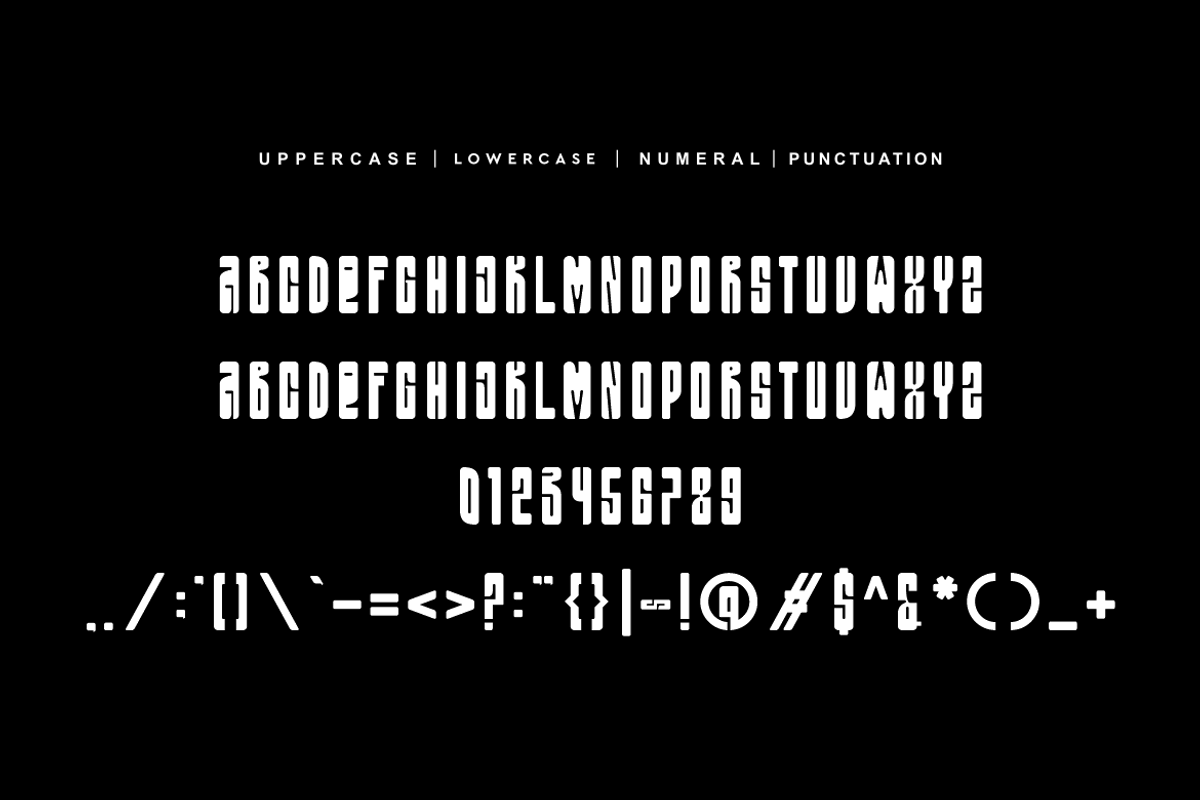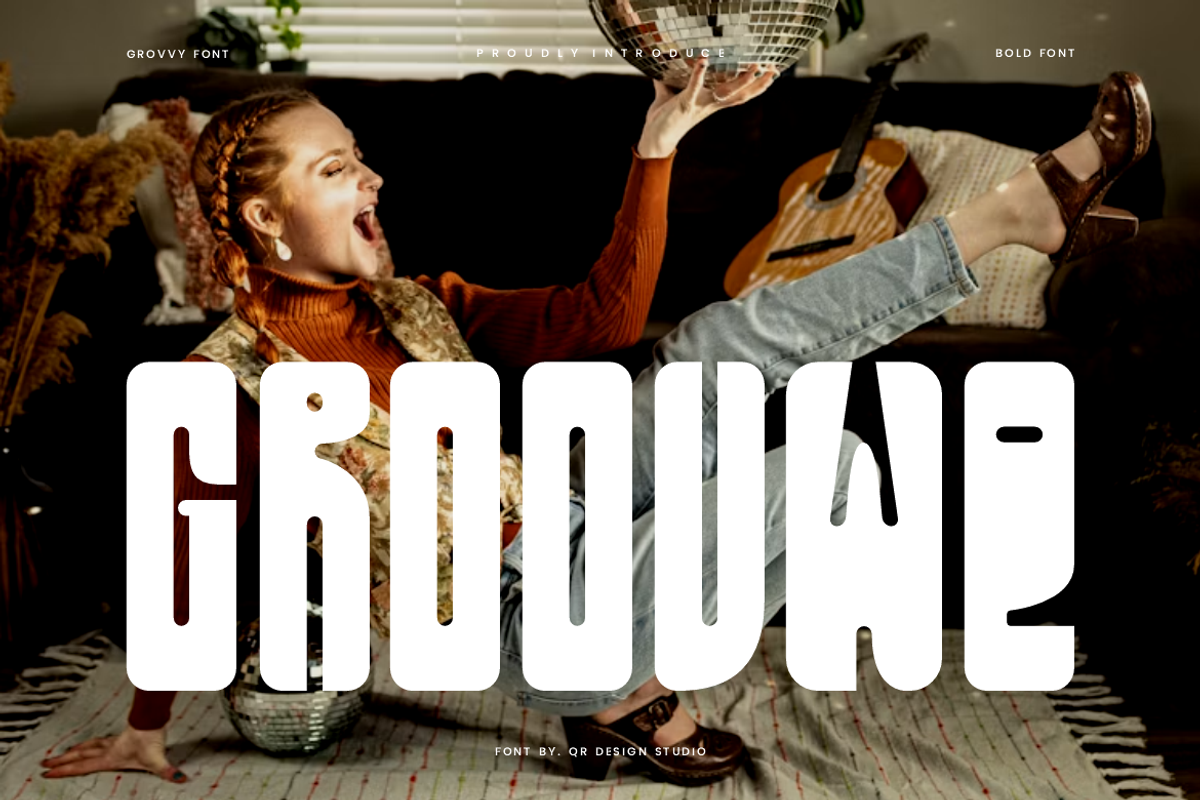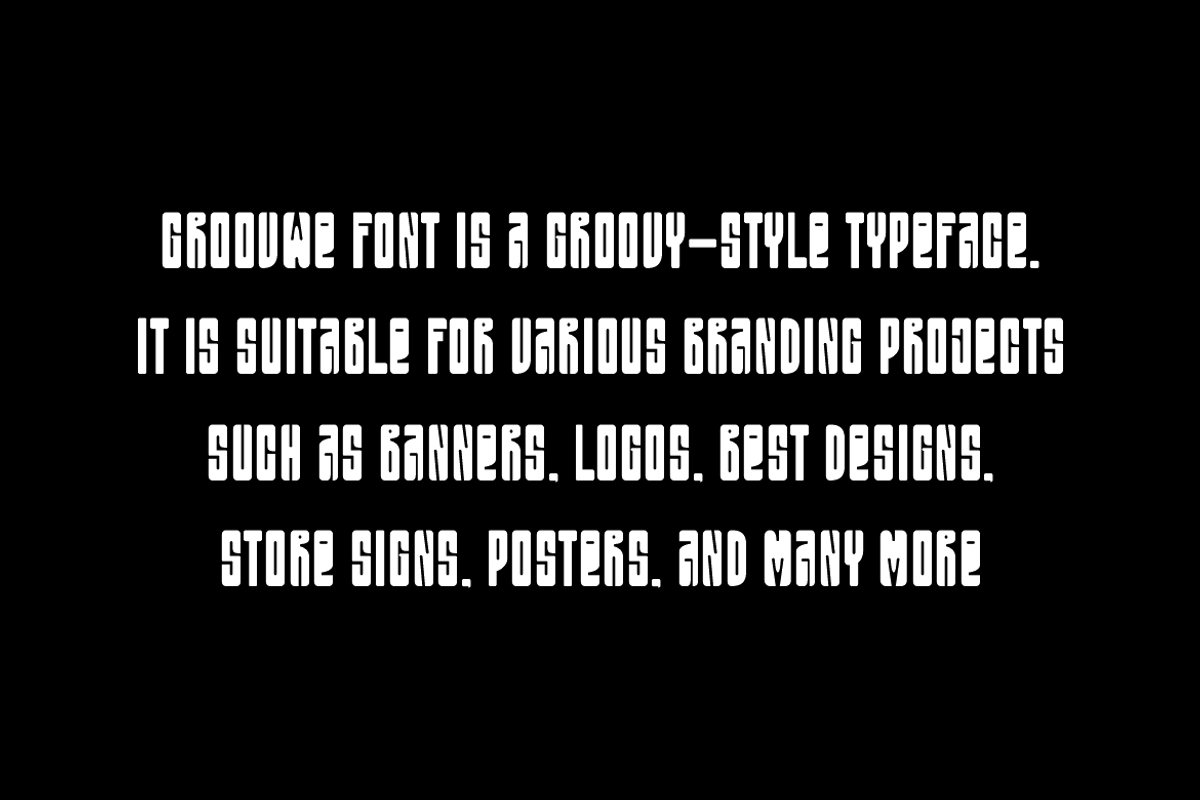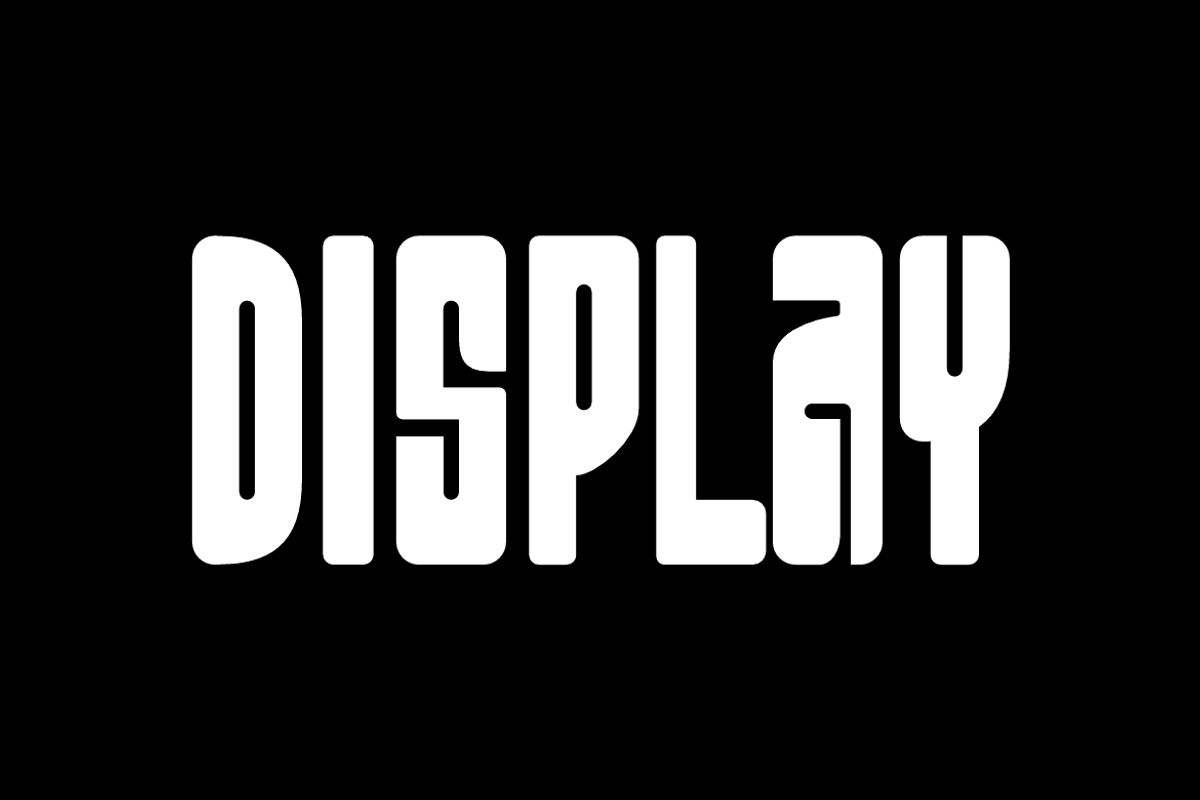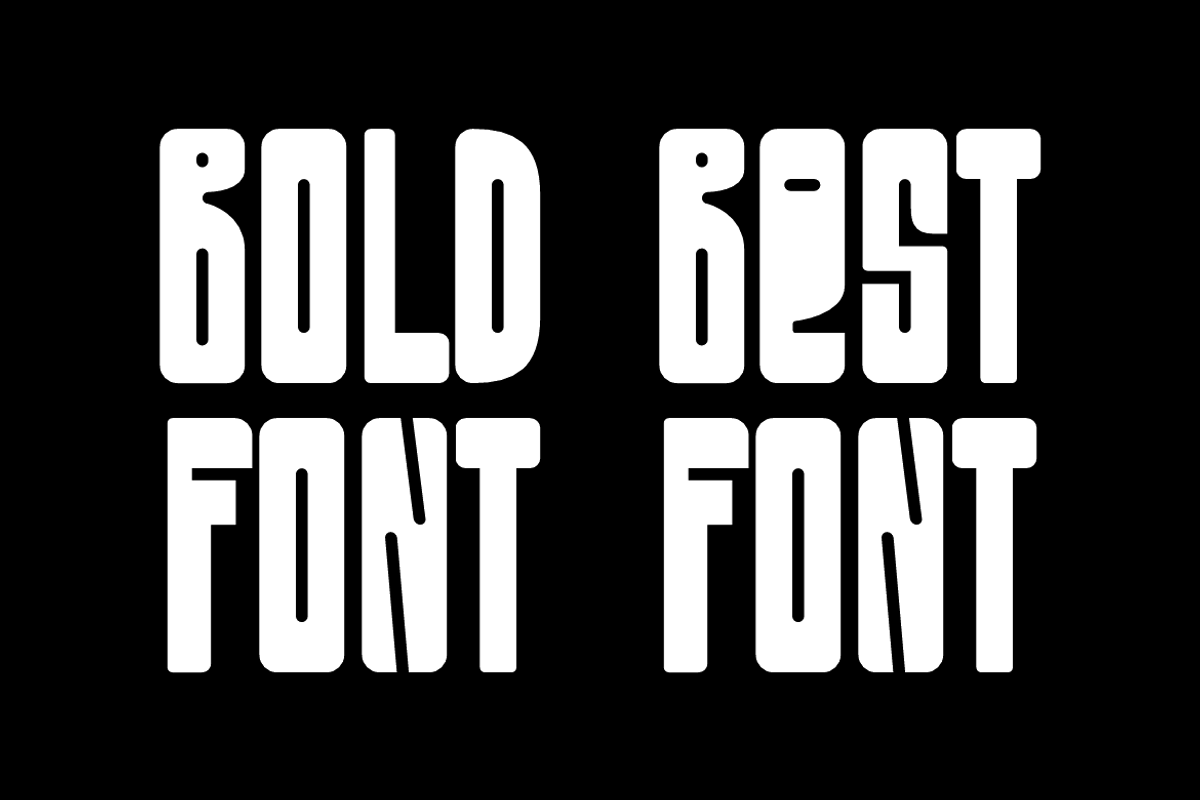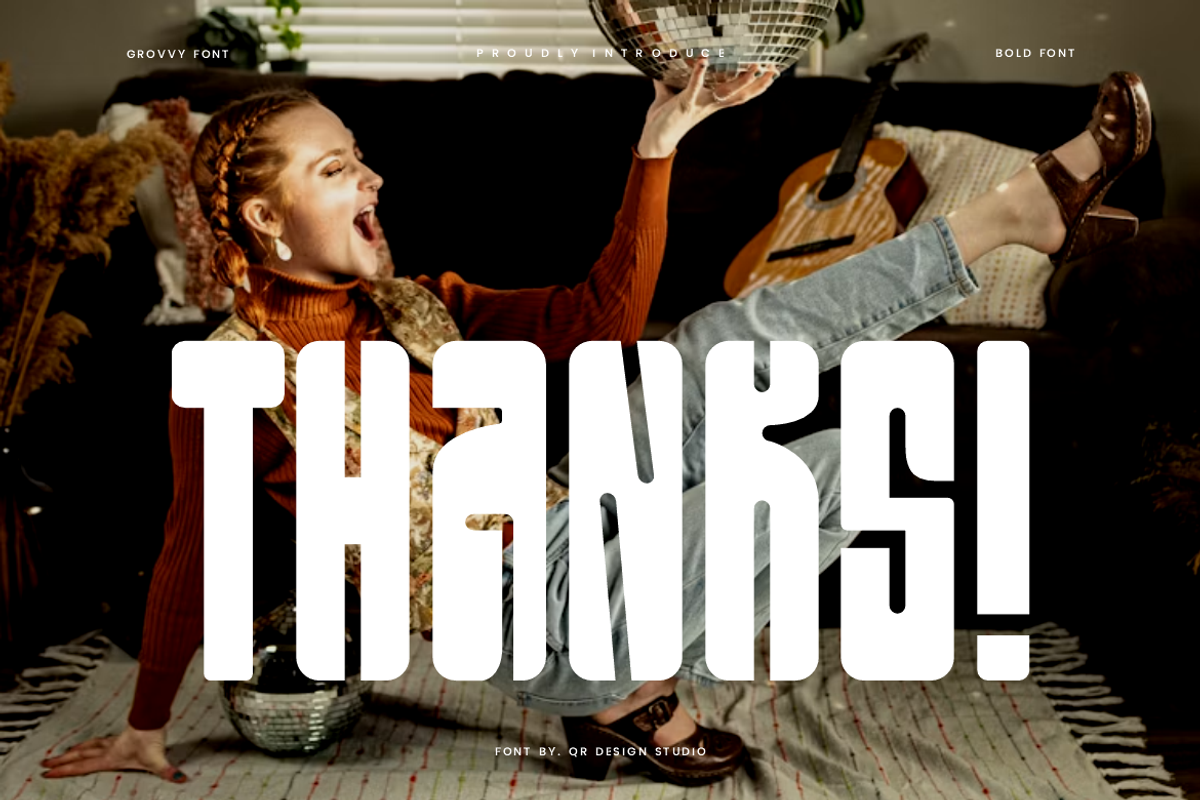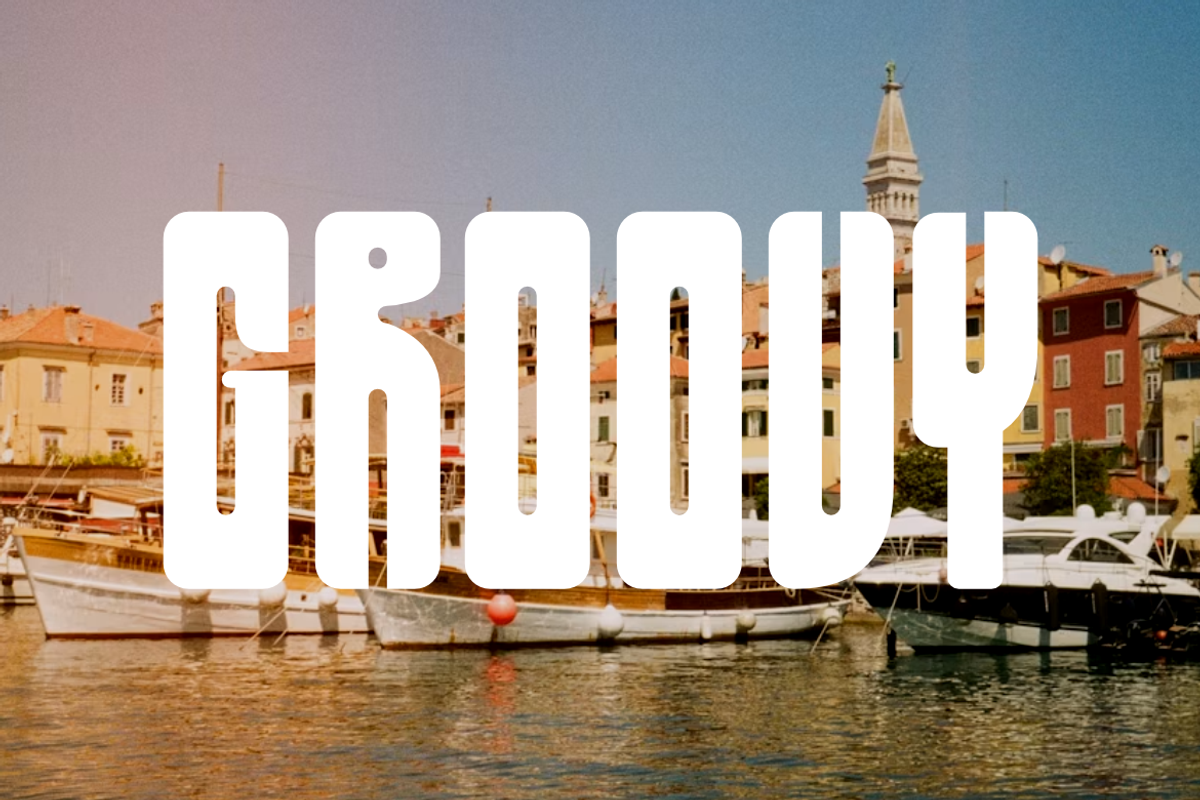
Groovwe - Groovy Font
Groovwe Font is a groovy and authentic display typeface.
It’s perfect for various branding projects such as logos, groovy designs,
and more. This font stands out beautifully in a wide range of contexts.